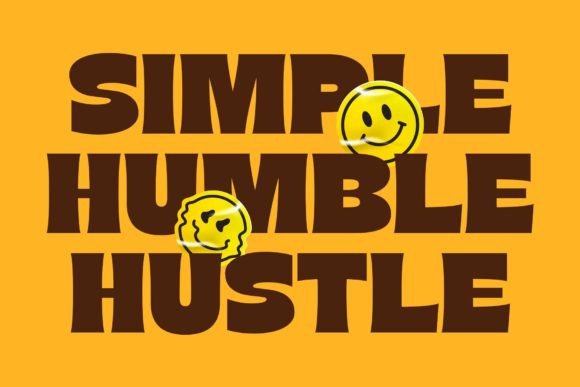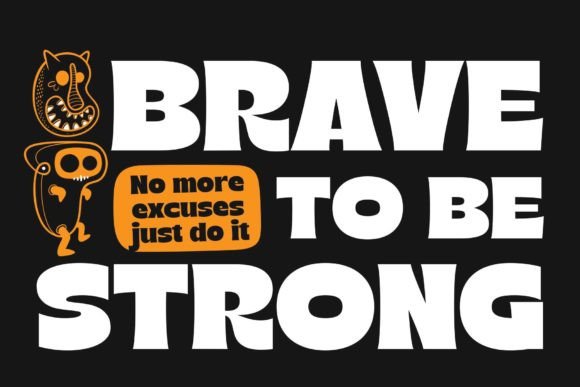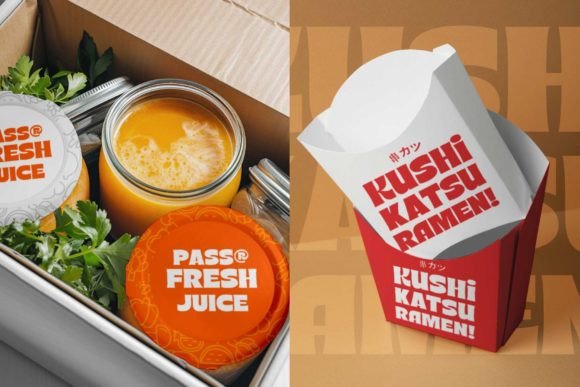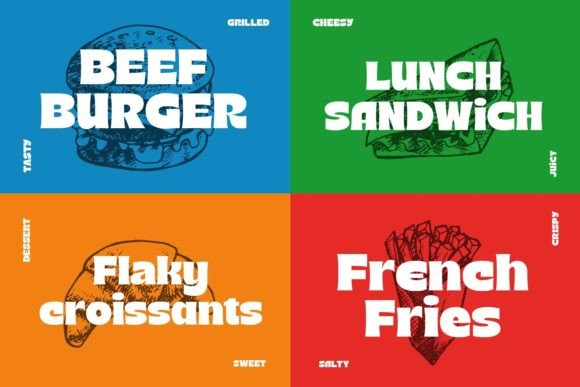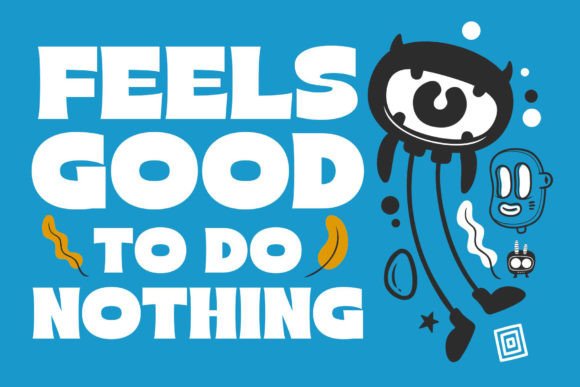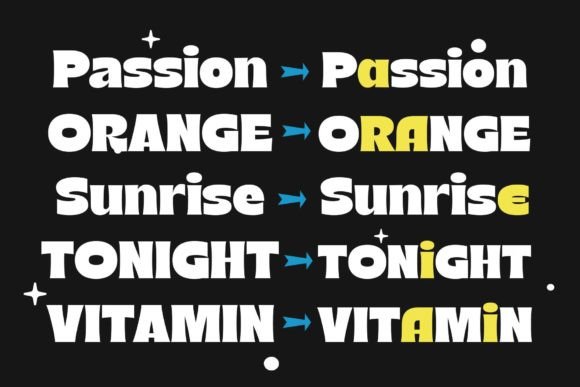
Introducing Akina Font: The Bold Serif with a Vintage-Pop Twist
Are you tired of using the same old fonts in your designs? Look no further than Akina, a bold serif font that brings a fresh and exciting vibe to your projects. Inspired by the charm of vintage-pop art, Akina is the perfect choice for designers and crafters who want to add a touch of energy and warmth to their work.
The Unique Characteristics of Akina Font
Akina’s design is all about contrast. Its thick, playful curves and subtle beak endings create a relaxed yet fun vibe that’s perfect for projects that thrive on bold statements. The font’s bold serifs add a touch of sophistication, while its rounded edges keep things friendly and approachable.
One of the standout features of Akina is its stylistic alternates. These alternate characters offer a range of creative possibilities, allowing you to customize your text and add a personal touch to your designs. Whether you’re working on a logo, headline, or packaging design, Akina’s alternates help you create a unique look that sets you apart.
Multilingual Support for Global Designers
As a global designer, you know how important it is to have a font that supports multiple languages. Akina delivers, with a range of characters and glyphs that cater to diverse linguistic needs. From English and Spanish to French and beyond, Akina’s multilingual support ensures that your designs can reach a global audience.
Perfect for a Range of Design Applications
Akina is a versatile font that’s perfect for a range of design applications. Here are just a few ways you can use Akina to elevate your designs:
- Logos: Akina’s bold, playful curves make it a great choice for logos that need to stand out. Use it to create a memorable brand identity that pops.
- Headlines: Akina’s thick serifs and stylistic alternates make it perfect for headlines that need to grab attention. Use it to add a touch of drama and flair to your typography.
- Branding: Akina’s unique blend of bold and playful elements makes it a great choice for branding projects. Use it to create a consistent visual identity that resonates with your audience.
- Motion Graphics: Akina’s dynamic curves and bold serifs make it perfect for motion graphics. Use it to add energy and movement to your animations and videos.
- Packaging: Akina’s bold, eye-catching design makes it a great choice for packaging projects. Use it to create labels, product names, and other packaging elements that need to stand out.
Akina offers endless creative possibilities for designers and crafters. With its stylistic alternates, multilingual support, and bold, playful curves, Akina is the perfect choice for projects that thrive on contrast and creativity.
Whether you’re working on a personal project or a client brief, Akina provides the flexibility and versatility you need to bring your ideas to life. So why settle for a boring, generic font when you can use Akina to create designs that truly stand out?
Get Ready to Elevate Your Designs with Akina
- Create bold, eye-catching designs that grab attention
- Add a touch of energy and warmth to your projects
- Customize your text with stylistic alternates and multilingual support
- Elevate your branding, motion graphics, packaging, and more